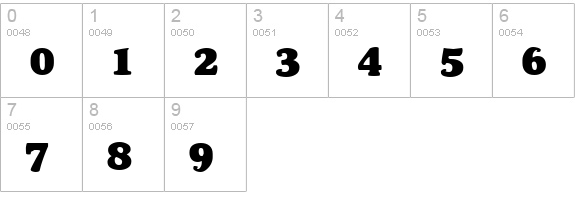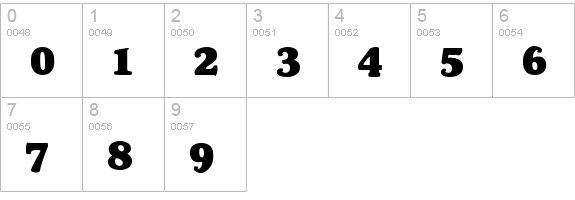
Trondheim Font Details
Trondheim font is a modern and stylish typeface that exudes elegance and sophistication. With its sleek lines and clean design, this font is perfect for a wide range of design projects, from branding to editorial layouts. The Trondheim font is versatile and can be used for both headings and body text, making it a great choice for any designer looking to add a touch of class to their work. What's even better is that Trondheim font is available for free download at FontsMarket.com. So, whether you're a seasoned graphic designer or just starting out, you can easily access this stunning font to elevate your projects to the next level. Don't miss out on the opportunity to enhance your designs with the timeless beauty of Trondheim font. Download it today and let your creativity shine!